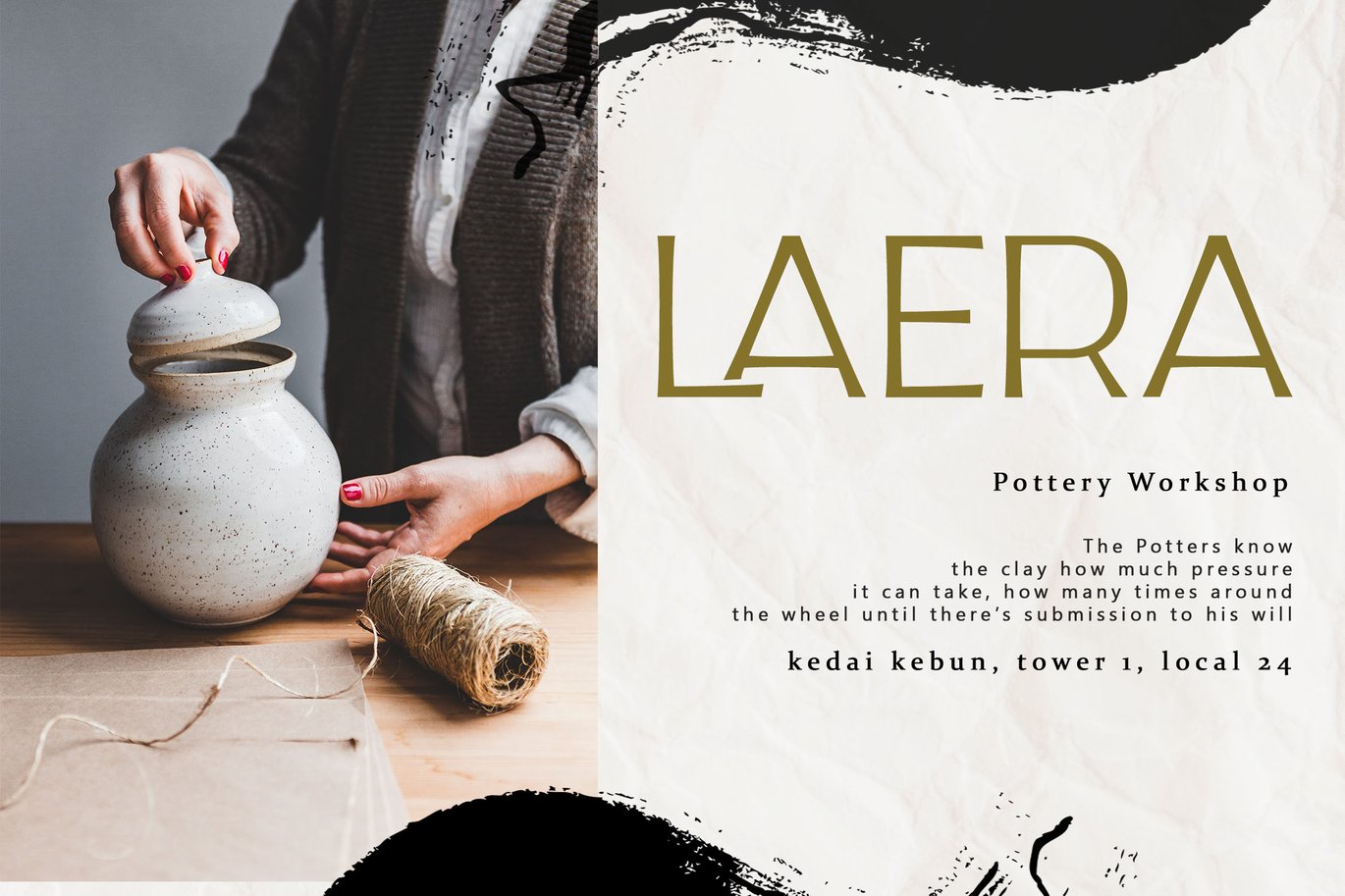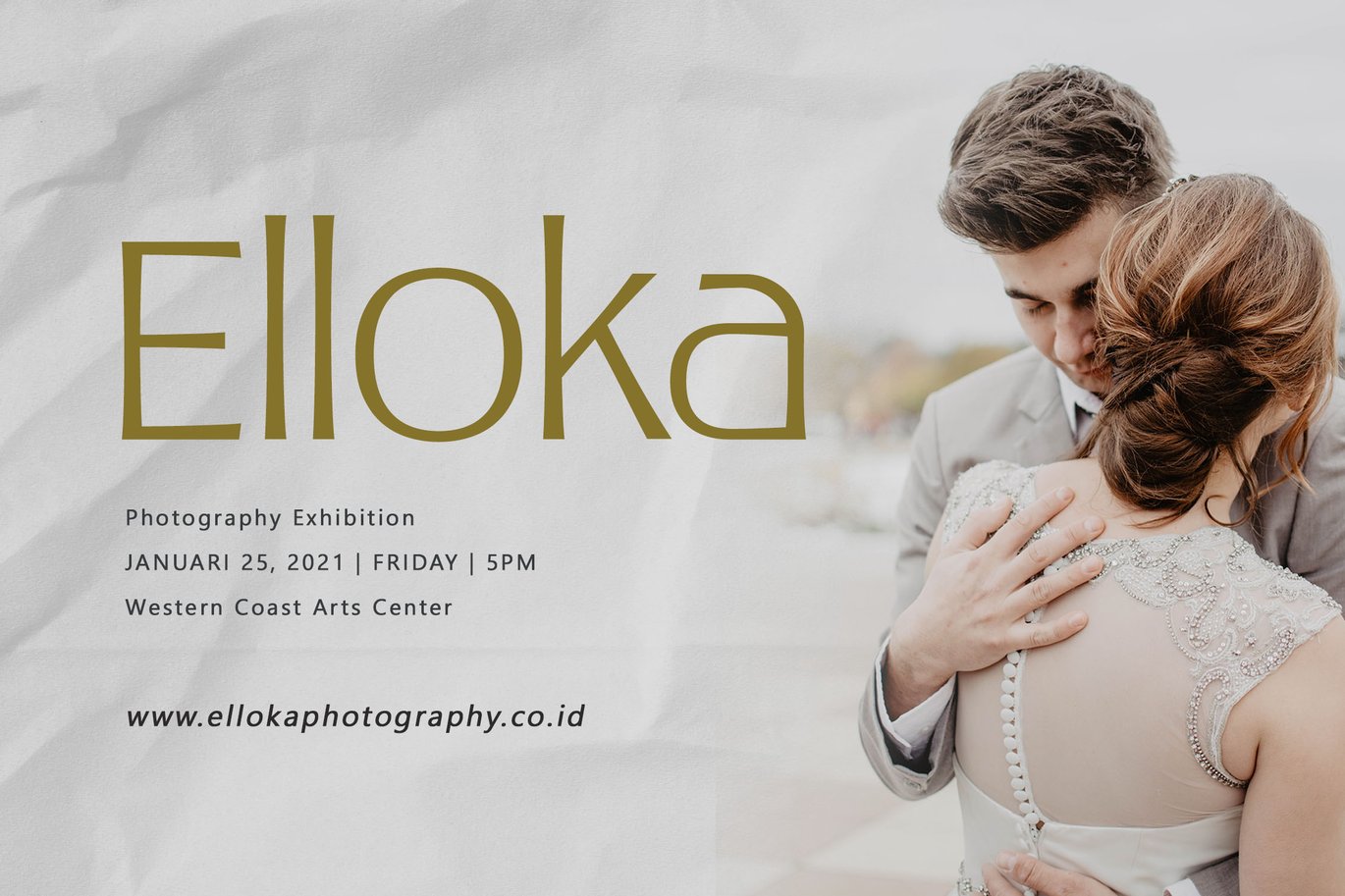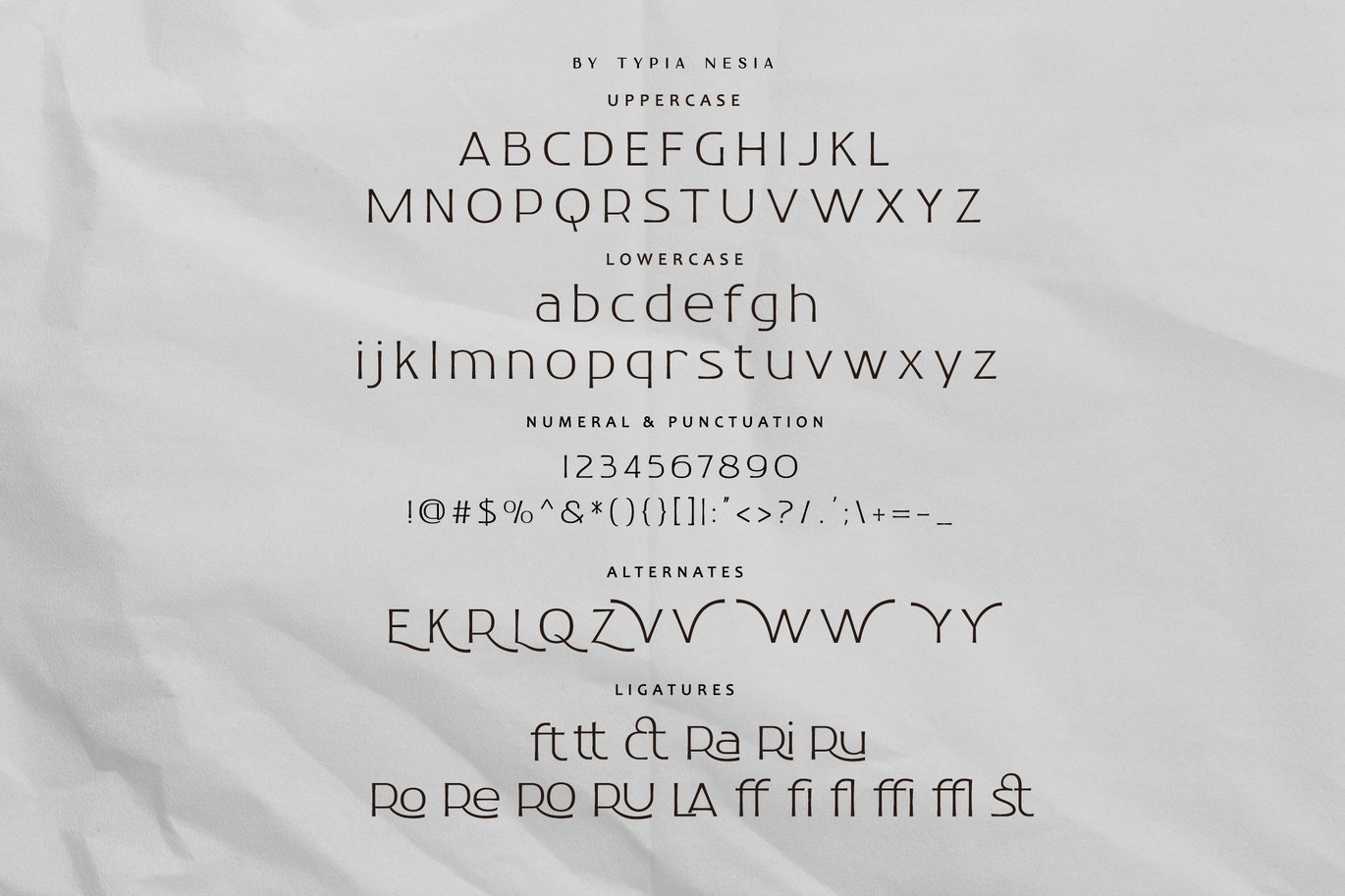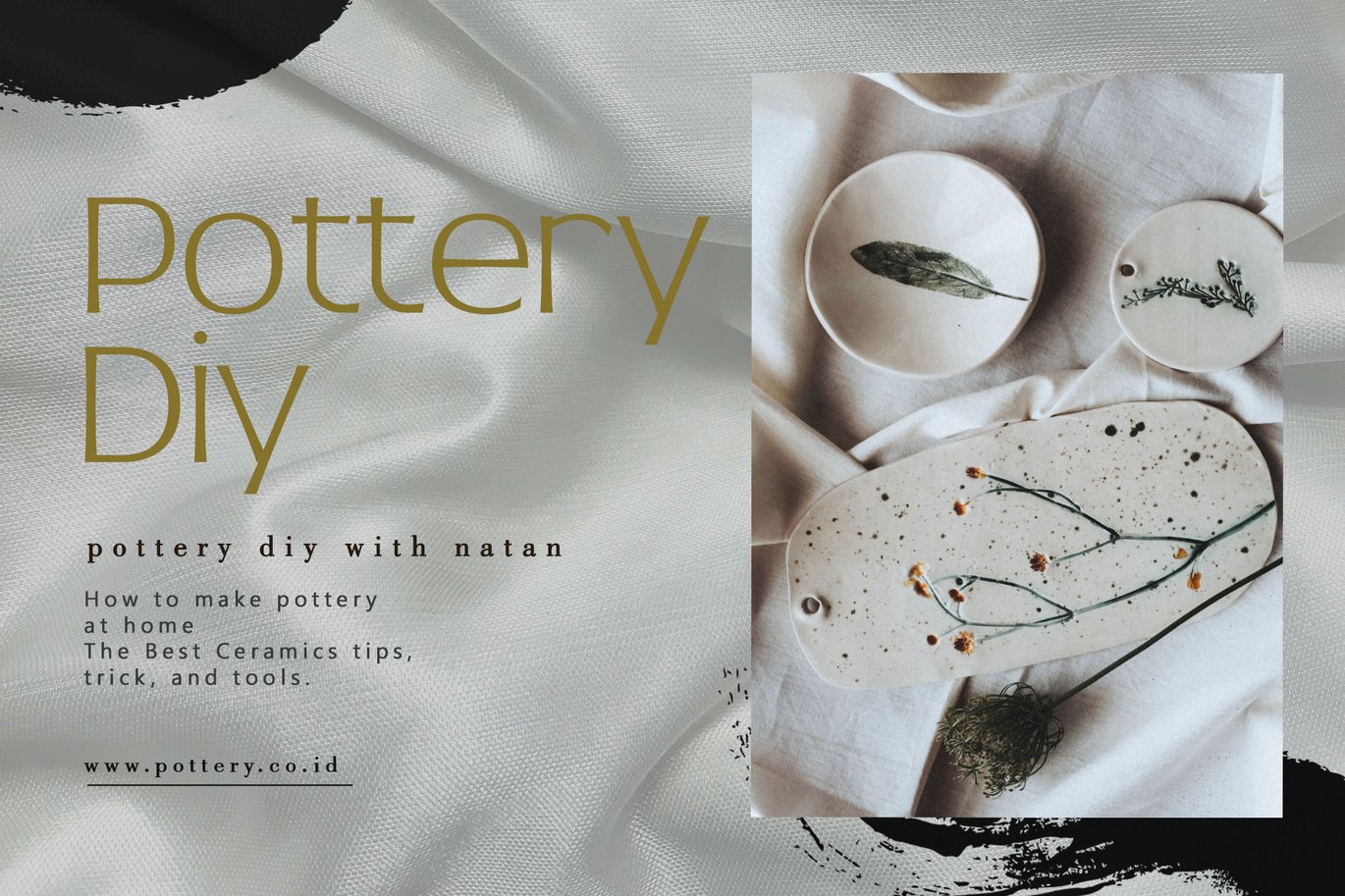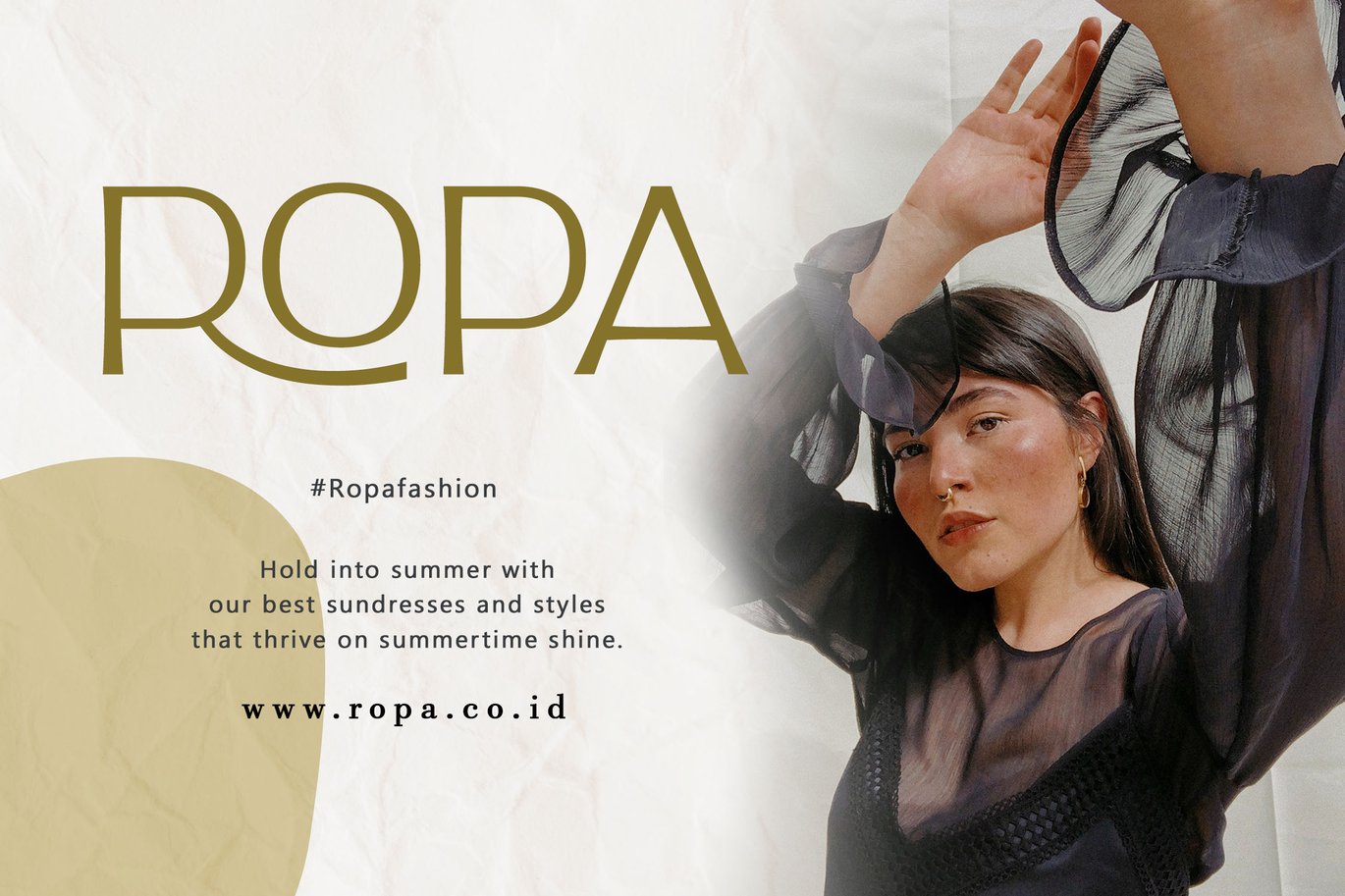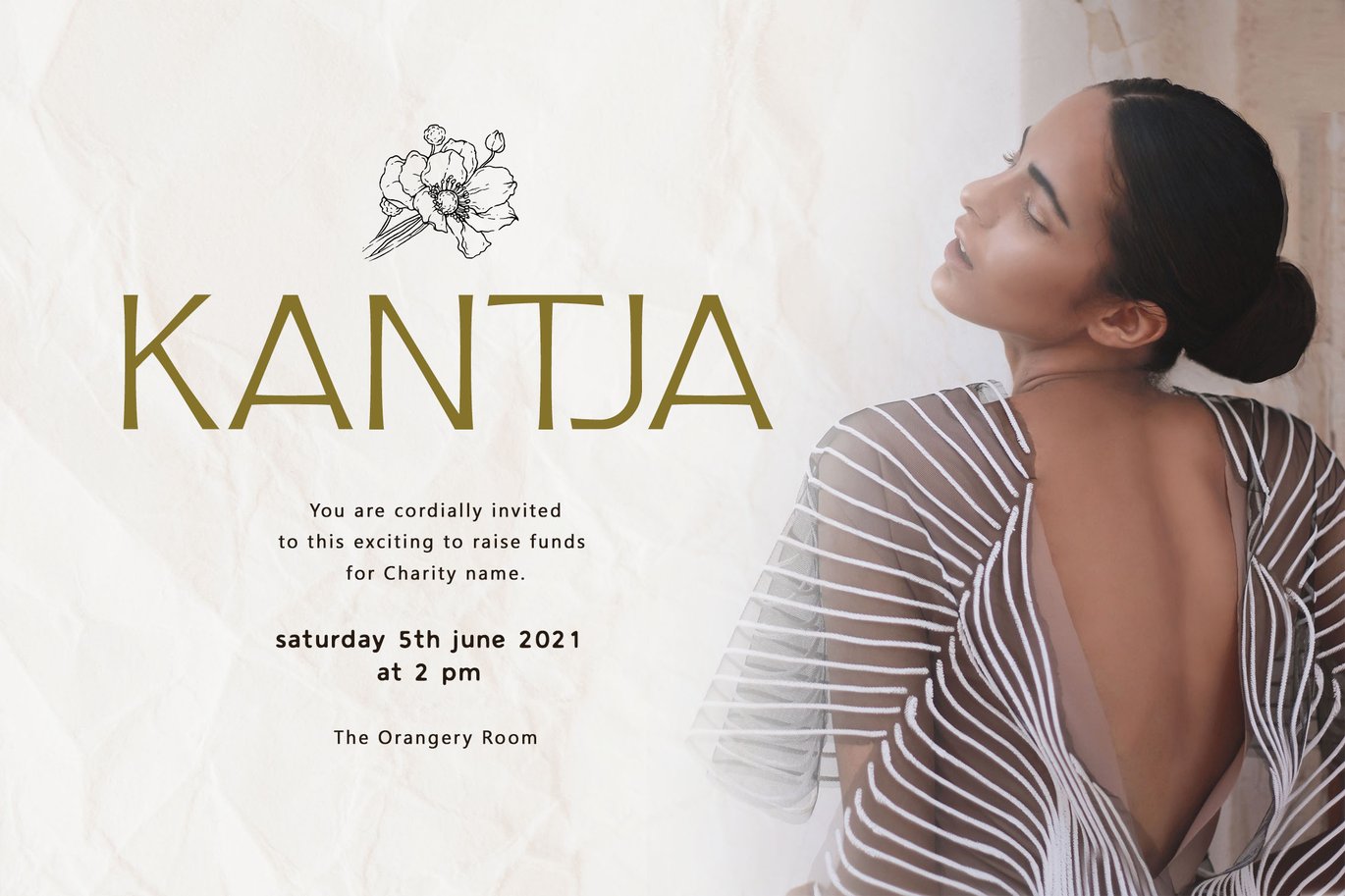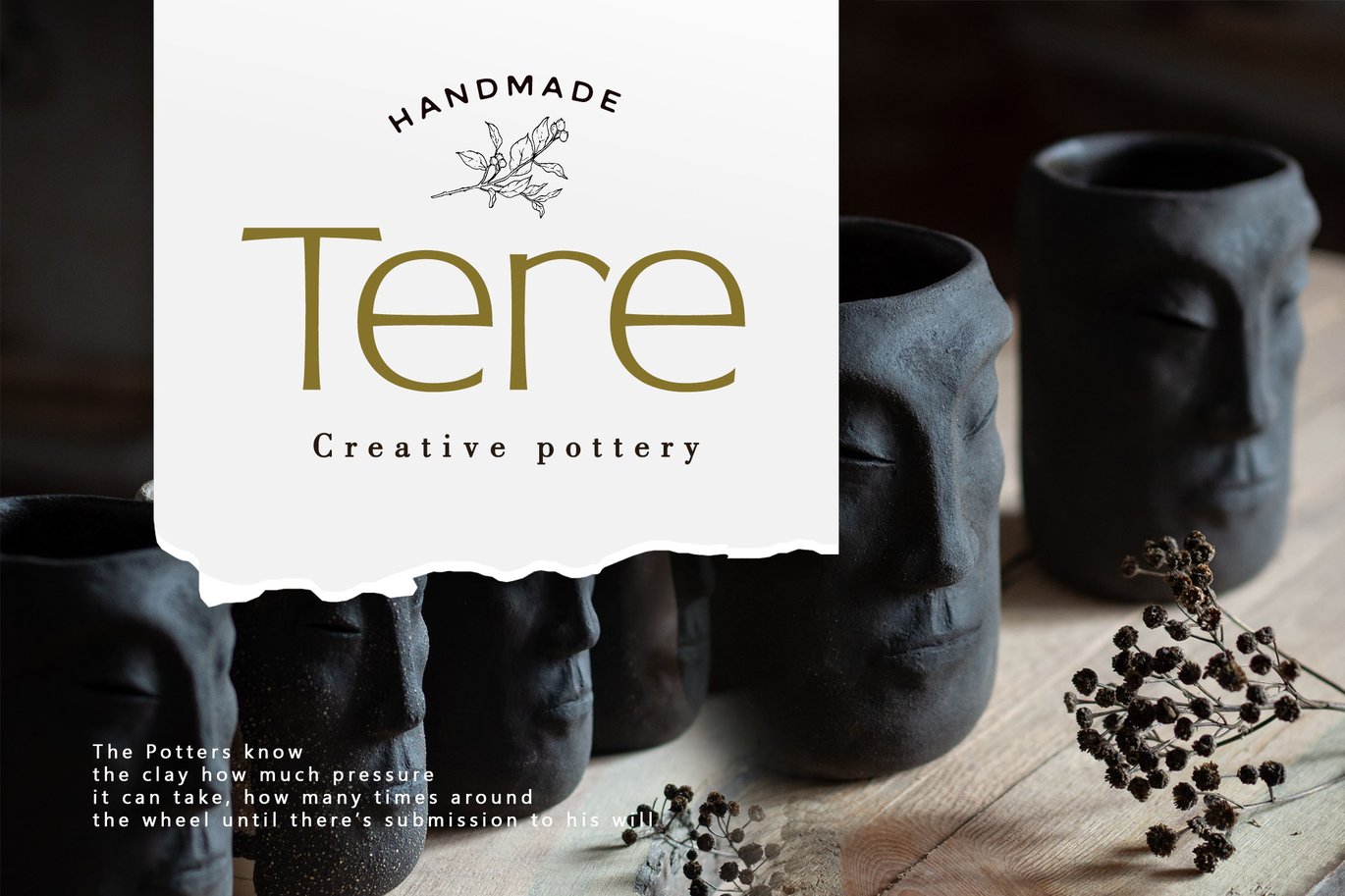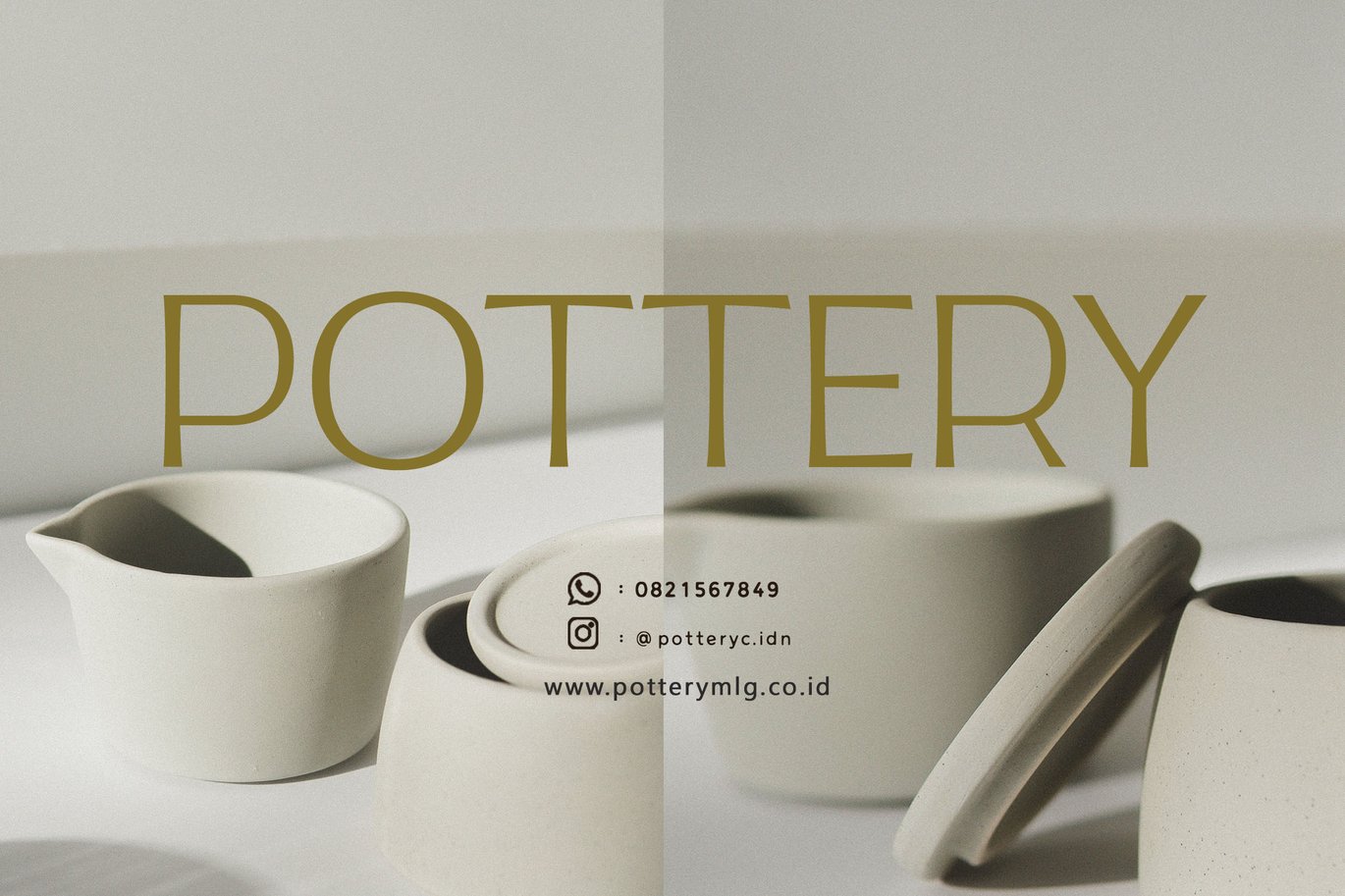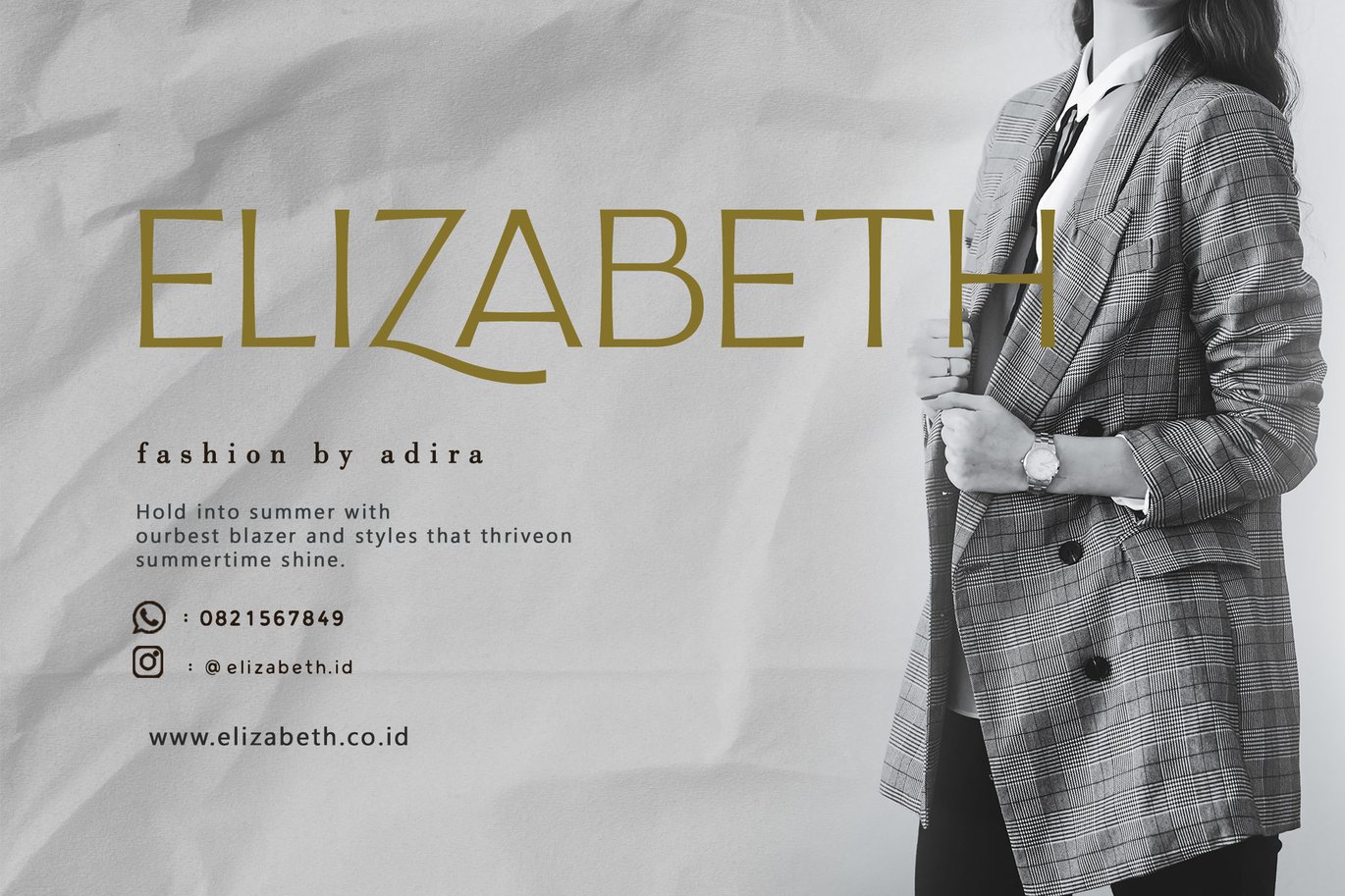
Gold and Queen – Beauty Feminine Branding Font
Gold and Queen – Elegant Glamour and Stylish Sans Serif – Expressive Modern Classy and Beauty Display Sans Font
Gold and Queen Elegant Sans Serif font is perfect for your up coming projects. Such as luxury logo and branding, classy editorial design, woman magazine, cosmetic brand, fashion promotional, art gallery branding, museum, historical of architectural, boutique branding, stationery design, blog design, modern advertising design, card invitation, art quote, home decor, book/cover title, special events and any more.